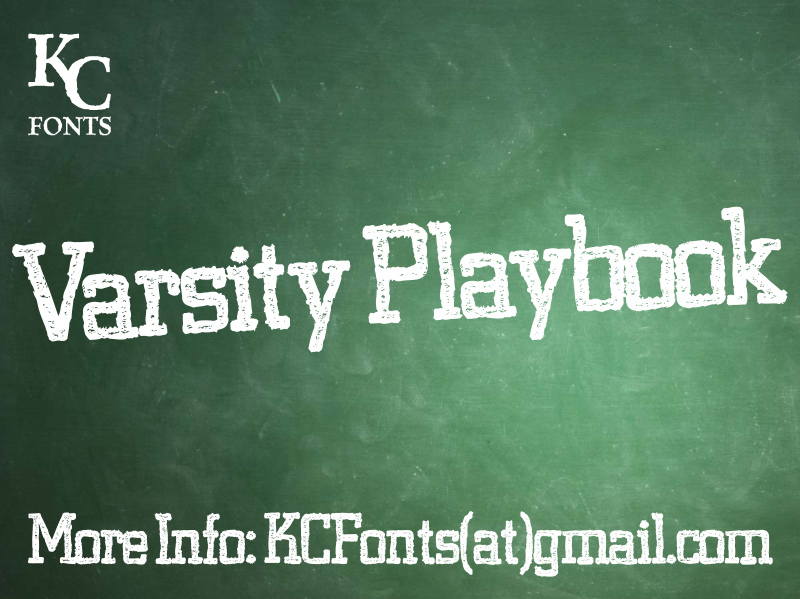
Varsity Playbook by Kevin Christopher of KC Fonts is a free eroded collegiate display font with broad slab serifs and a firmly stamped silhouette. Its tall capitals have slightly uneven edges and dense scratches scattered through the strokes. The compact spacing gives the lettering the force of old athletic signage.
Team merchandise is its strongest setting, especially fan apparel built around a worn school sports theme. It also suits game-day posters and campus event graphics where the distressed letters can echo scuffed equipment, weathered paint, and vintage team emblems.